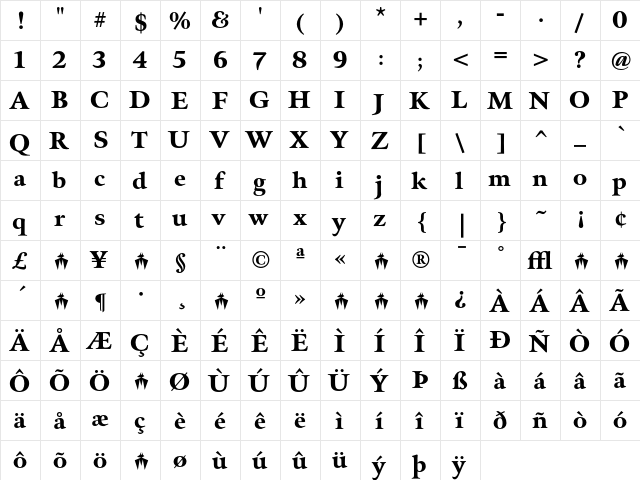
Meno Black
Design Context for Meno Typeface
Meno takes a measured approach to typography — its balanced proportions and neutral character make it a reliable workhorse for both digital and print work.